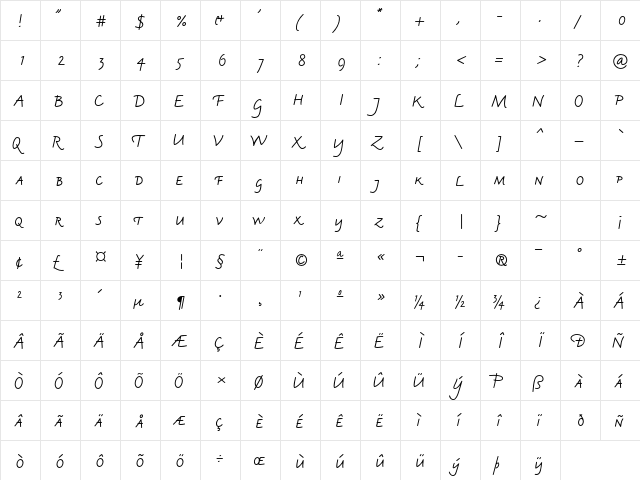
Amadeo Std Small Caps
Design Context for Amadeo Std Typeface
Amadeo Std is a composed and adaptable typeface that performs quietly and consistently across a wide range of design contexts.